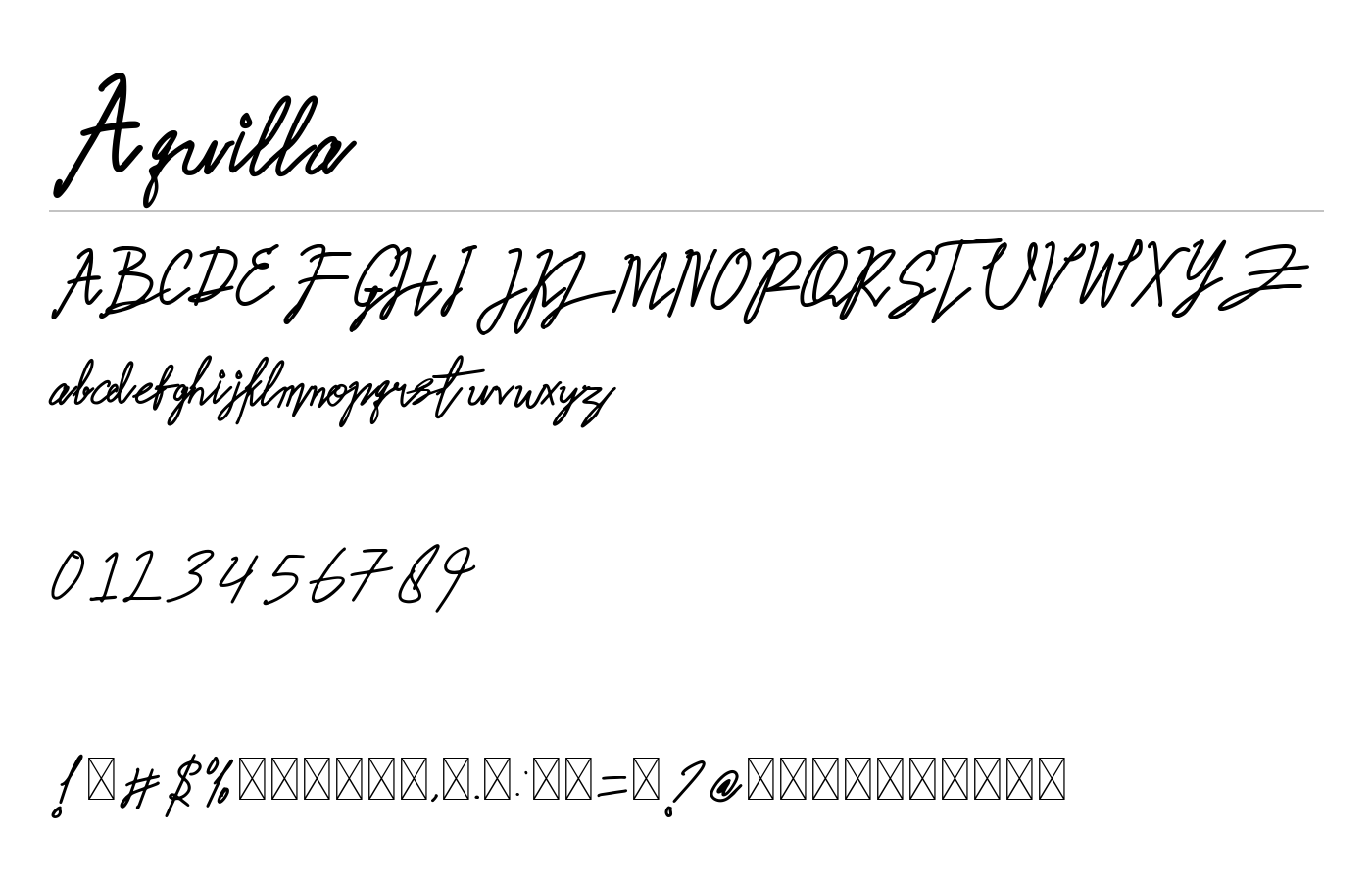
Aquilla is a delicate script font that mimics elegant, natural handwriting with a slender and slightly slanted style. Its light weight and flowing letterforms convey a refined, personal touch, making it ideal for invitations, branding, and editorial projects that seek a graceful yet approachable feel. The font’s narrow, connected strokes work beautifully in designs where a subtle, sophisticated expression is desired.
Aquilla Font
About Aquilla Font